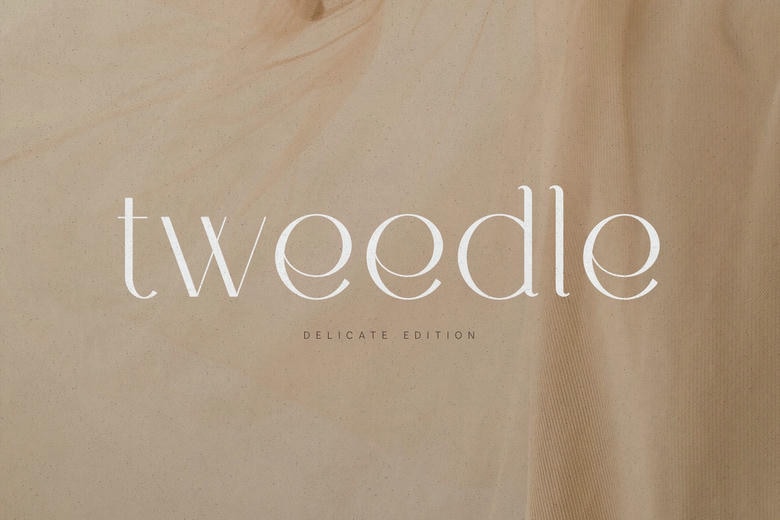
Tweedle Font
Tweedle Delicate is a polished serif font that is created in elegant curves and gentle contrast. With its thin lines and graceful ratios, it is a classic, feminine and elegant look that is ideal in luxury branding, fashion magazines, wedding invitations and high quality packaging.
Enter soft luxury in Tweedle (Delicate Edition) a modern serif typeface that reinvents minimalist elegance. This is a Delicate Edition with hairlines so slim, and the stems curving at the edges, forming a silhouette that is both elegant and seamless so it feels modern yet age-old.
Tweedle is created to accommodate high-end editorial layouts, luxury fashion branding, and high-quality packaging where a less is more approach has been made prevalent. Unbelievably readable, its spacing between letters is wide, and open forms are clean and suggest an air of exclusivity and quiet luxury.
Tweedle Delicate has a clean and expressive look with the help of gorgeous uppercase and lowercase letters, multilingual capabilities, numerics, and other necessary punctuation marks. The elegant details and the seamless flow of it makes it perfect in logos, magazines, beauty brands, and minimal design projects of the modern world.
It would be the perfect complement to any high-fashion magazine header, or a boutique logo, or even a beautiful wedding stationery, and Tweedle would be an elegant touch that would speak volumes through its subtle beauty.
Tweedle Delicate Serif Font